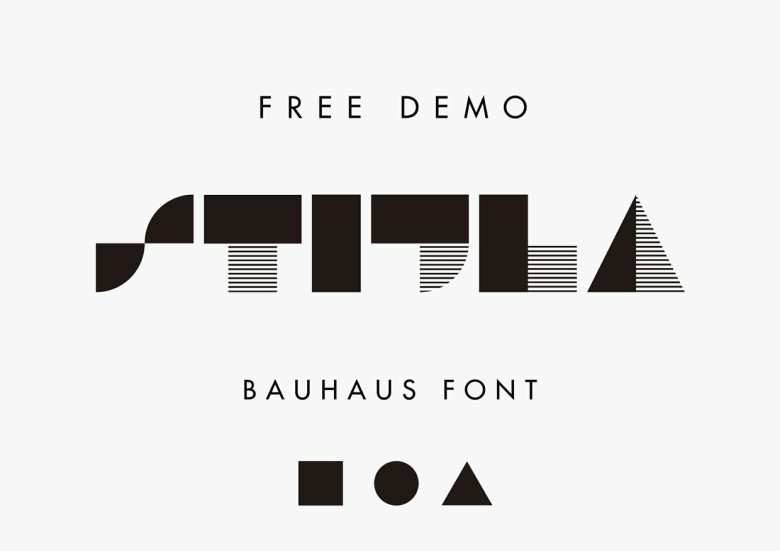
STIJLA Bauhaus-like Font
Continue to Display a special typeface. Introducing STIJLA Bauhaus-like font FREE. STIJLA designed by Alfonso Armenteros Parras. STIJLA™ is a carefully designed typeface based on principles of the bauhaus, De stijl movement and Gestalt’s theories. The zip you’re buying contains 147 glyps, STIJLA™ is most suitable as a decorative display font.